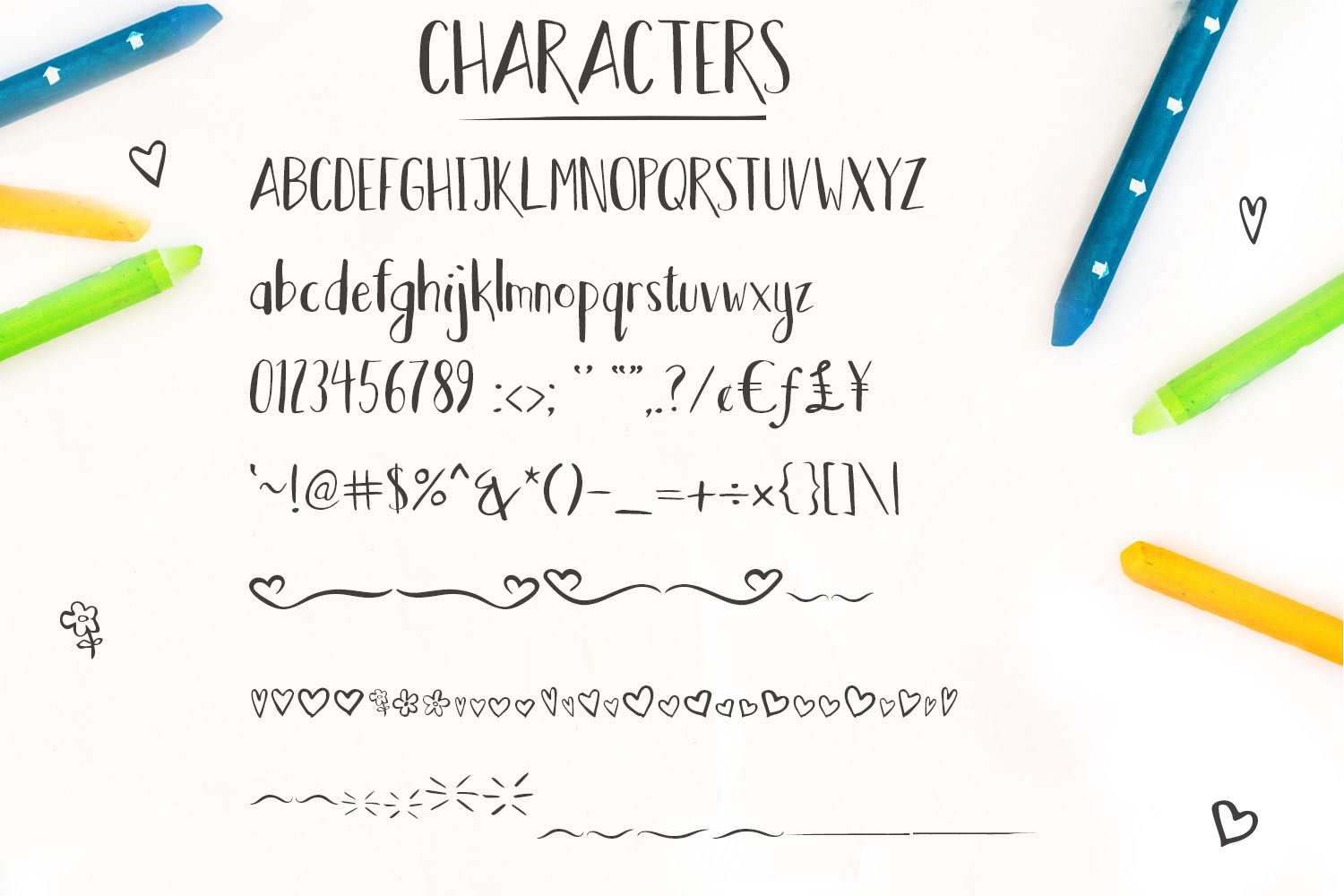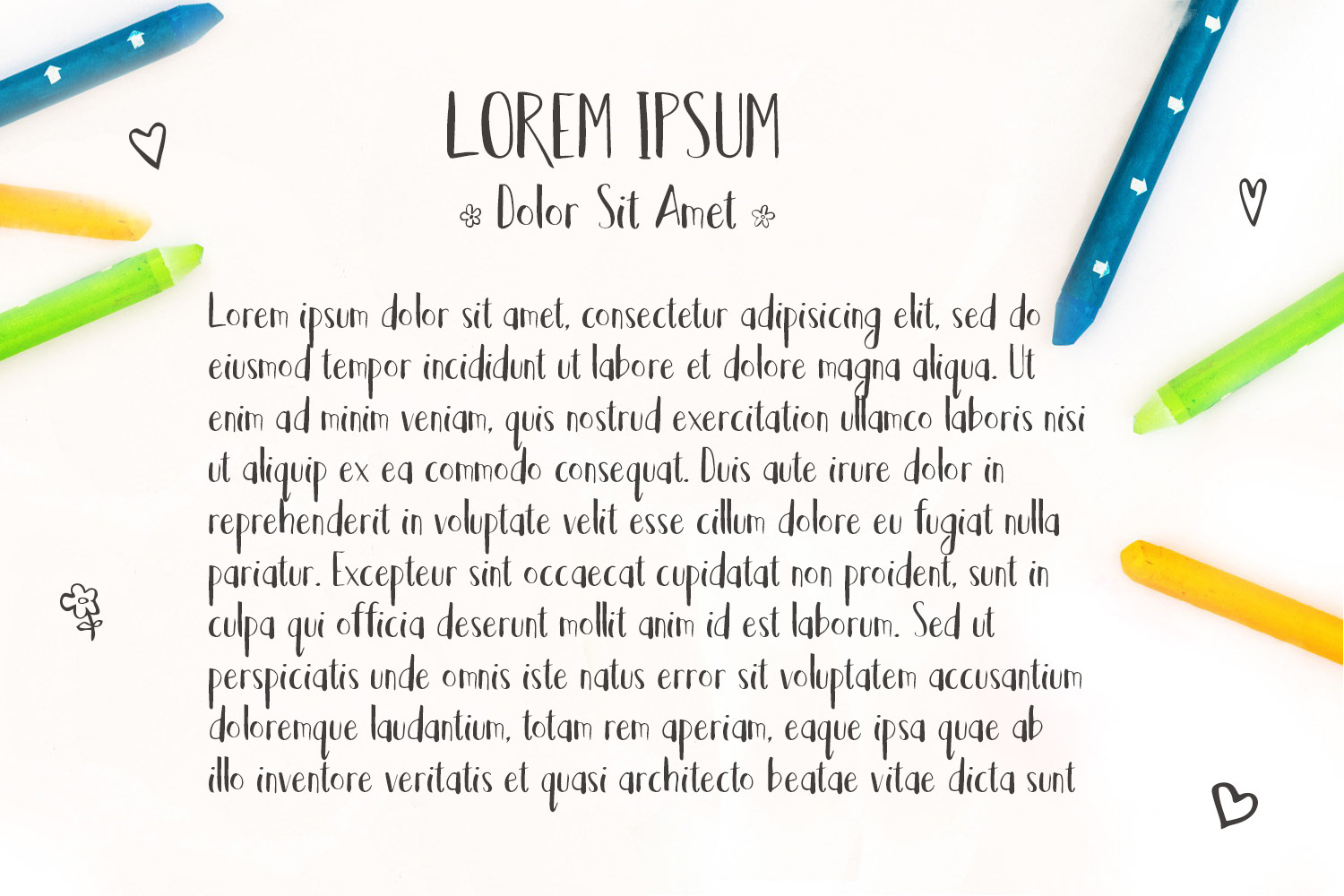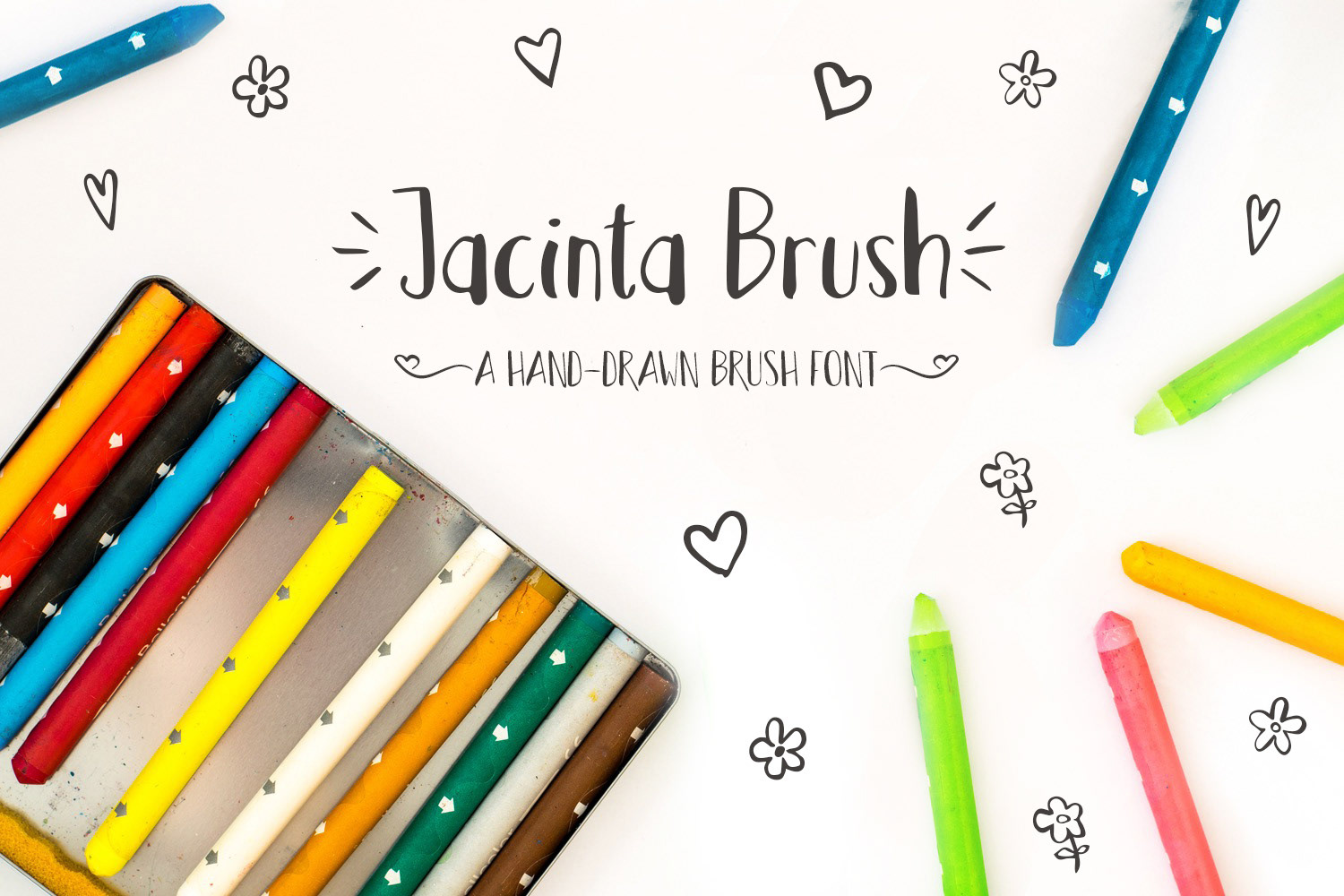
Introducing Jacinta Brush!
A hand-crafted font designed using a water brush and pigmented ink. Then digitized in Illustrator and finished in Glyphs.
With a few extra currency glyphs and decorative embellishments included which are accessible via compatible programs (such as Adobe Illustrator/Photoshop/Indesign).